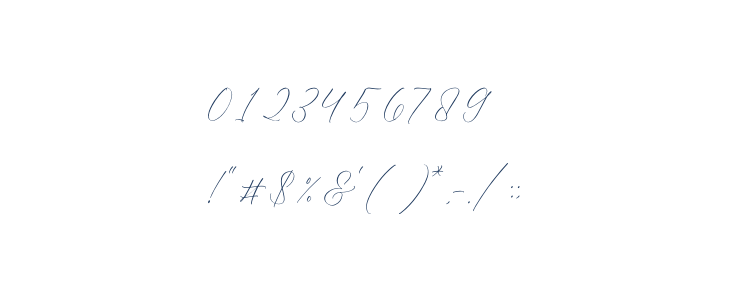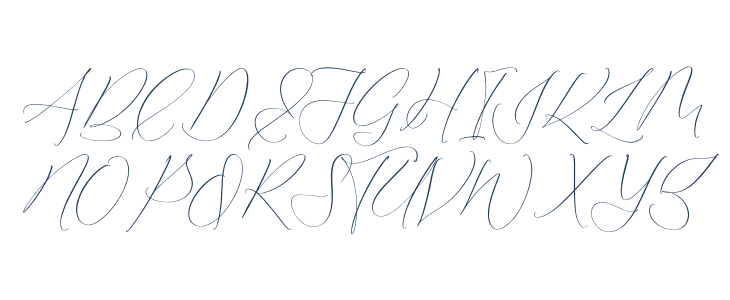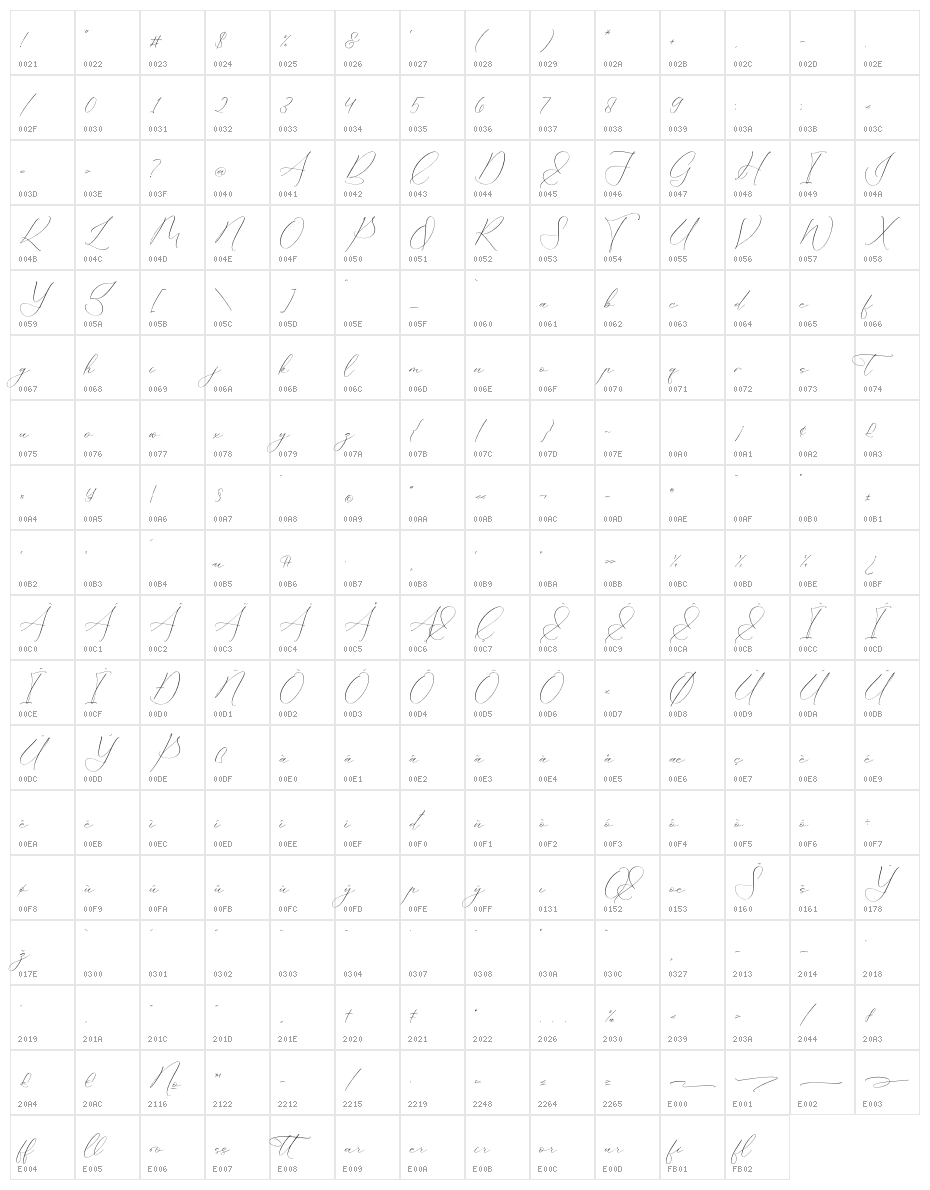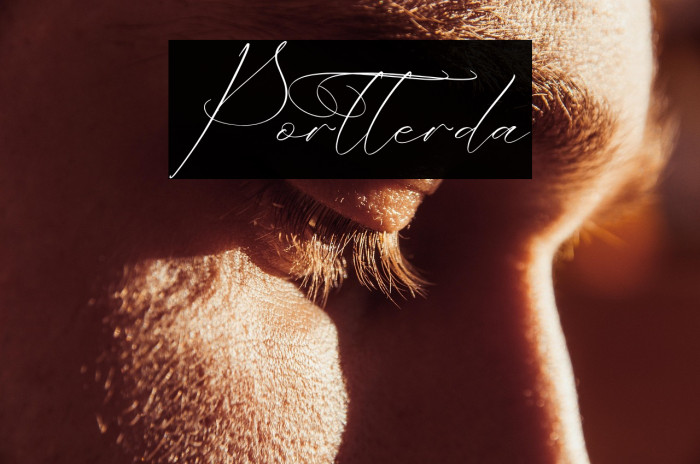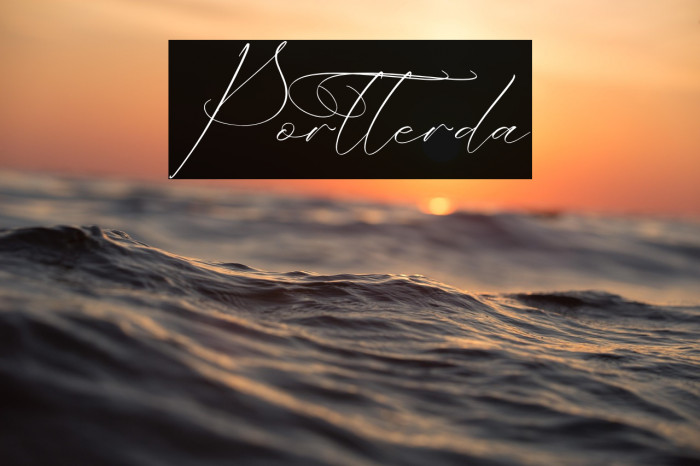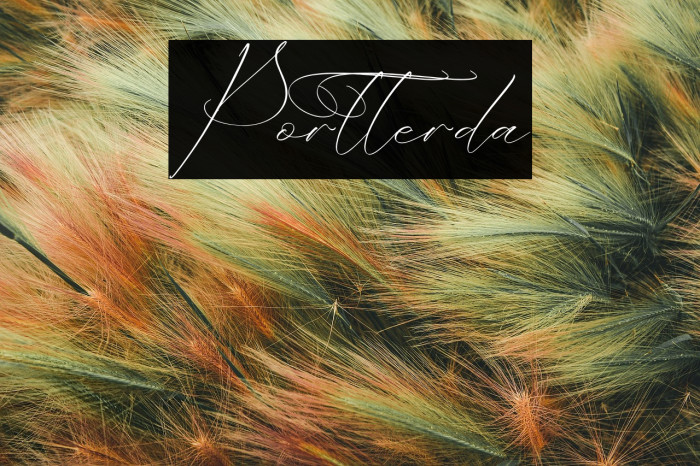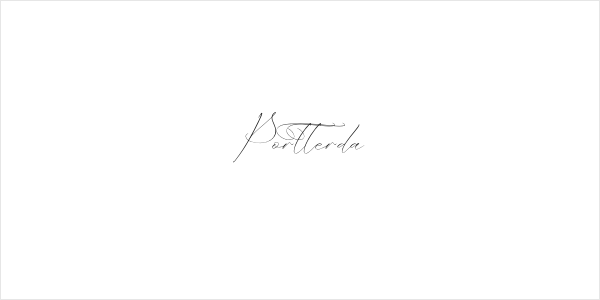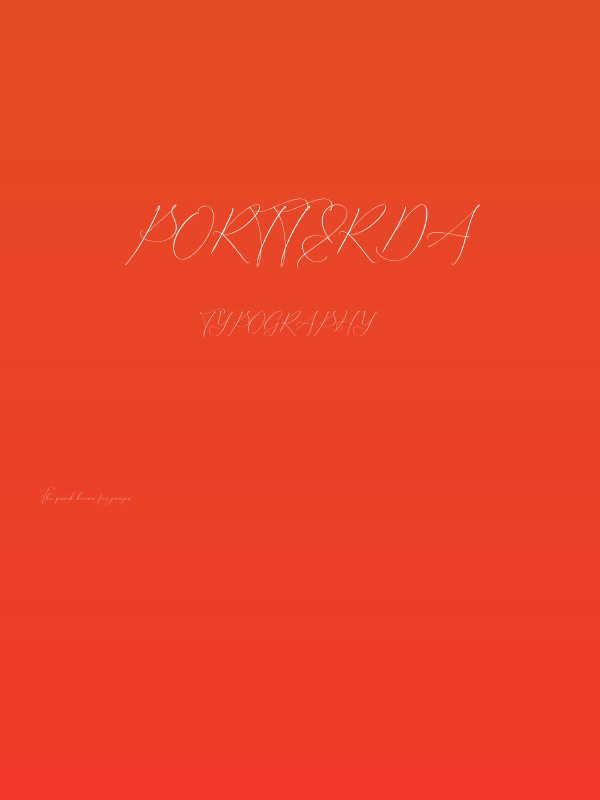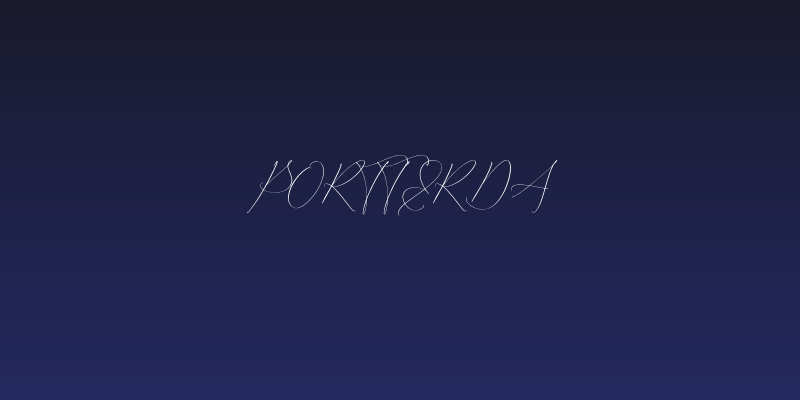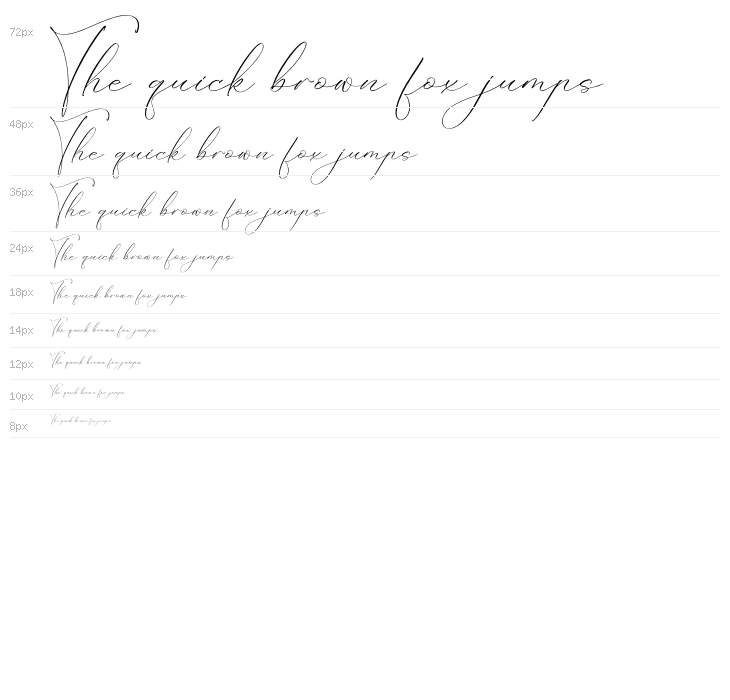
Portterda Font
Portterda Description
Elegant, flowing script with very thin strokes and high contrast, featuring exaggerated loops and flourishes, giving it a handwritten, calligraphic appearance.
| Overall Style | Decorative, Elegant, Handwritten |
| Use Case | Logos, Invitations, Decorative headlines |
| Proposed Projects | Wedding invitations, luxury branding, certificates, greeting cards, elegant event signage. |